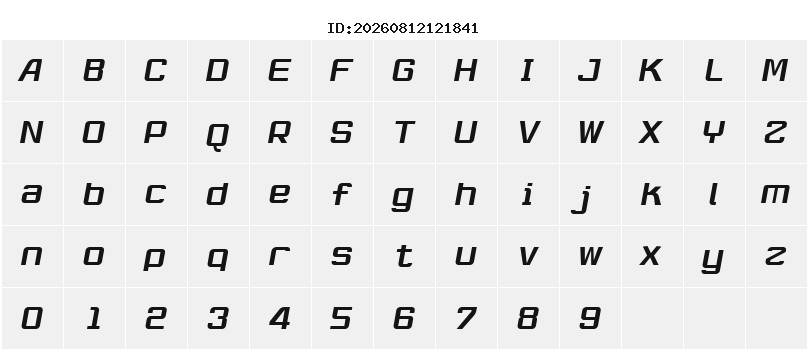
RobustikRegular Oblique Preview
• Font Name: RobustikRegular Oblique
• Full Font Name: RobustikRegular Oblique
About RobustikRegular Oblique.ttf
RobustikRegular Oblique.ttf is a modern, elegant sans-serif font designed for ultimate readability and visual harmony. Perfect for branding, headlines, web design, and print materials.